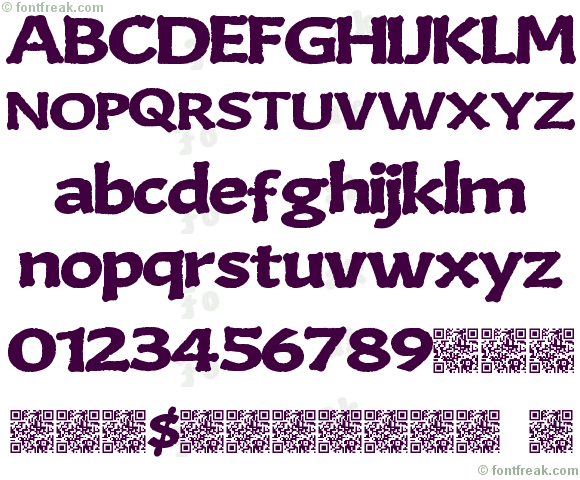
BoneKing
About BoneKing
BoneKing by Xerographer Fonts is a striking decorative typeface that captures attention with its unique, playful aesthetic. Released in 2013, this font features a bold, chunky design that exudes a sense of whimsy and character. The uneven stroke weights and slightly irregular forms lend a hand-crafted quality to the letters, making it suitable for a variety of creative projects. Its generous spacing enhances readability while still maintaining an engaging visual presence.
This font is ideal for use in contexts where a fun and lively touch is desired. Imagine it gracing event posters, especially for children's parties or festivals, where its playful nature can shine. It also works wonderfully for branding elements in cafes or restaurants that want to convey a relaxed yet vibrant atmosphere. Additionally, BoneKing is perfect for eye-catching headers in social media graphics or website banners aimed at a youthful audience. Graphic designers and content creators will find this font particularly appealing for projects that require a bold statement without sacrificing approachability.
What sets the BoneKing font apart is its distinctive charm and versatility. The blend of boldness and playfulness invites users to explore their creativity, making it a standout choice for anyone looking to add a unique flair to their designs. With the BoneKing font free download, you can easily incorporate this exceptional typeface into your next project and bring your creative visions to life.